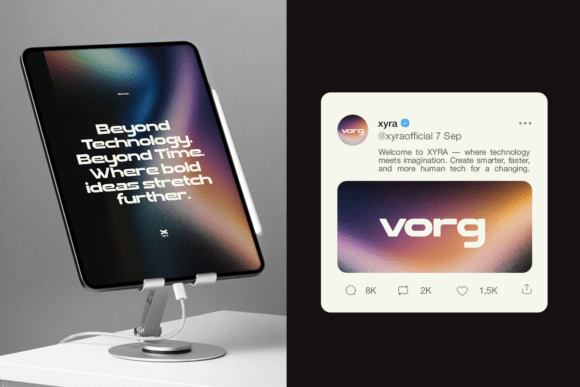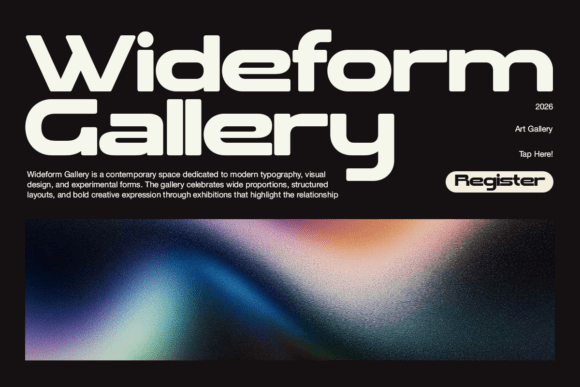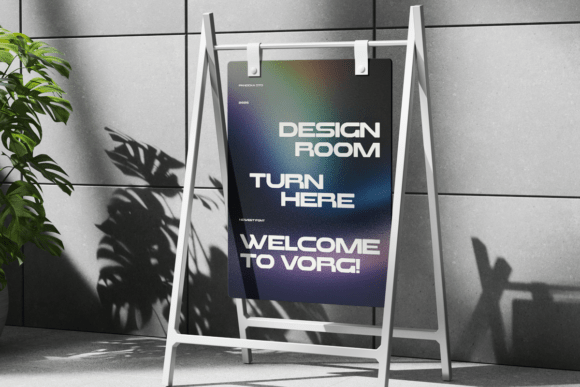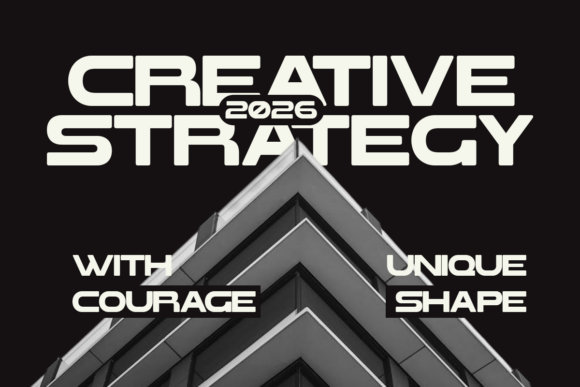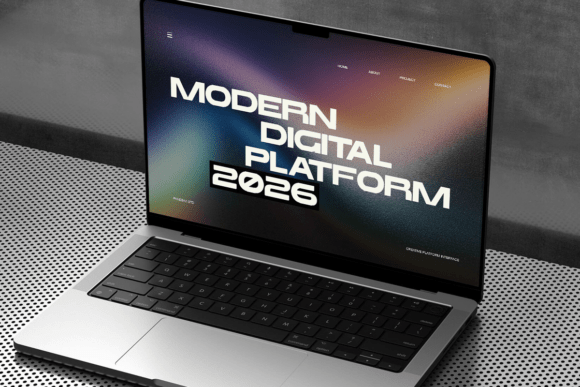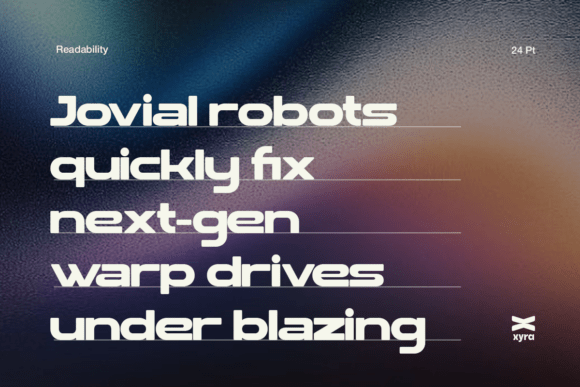
Introduction to Qianor Font
Have you ever stared at a blank canvas, searching for the perfect font to bring your creative project to life? It’s a moment we’ve all been there – the blank page, the blank slate, the endless possibilities. But sometimes, all it takes is the right font to spark that perfect idea. Enter Qianor Font, a modern extended sans serif font designed to deliver a sleek, futuristic, and professional look that’s sure to elevate your design game.
With its wide letterforms and clean geometric structure, Qianor Font creates a strong visual presence that works perfectly for modern branding and technology-inspired designs. Whether you’re working on a high-quality design project or simply need a reliable design resource, Qianor Font is an excellent choice. Plus, its transparent background makes it easy to layer and customize to fit your creative vision.
Key Features of Qianor Font
- Unique and elegant design, ideal for creative projects that require a touch of sophistication
- Designed to be highly legible, even at small font sizes, making it perfect for body text and captions
Honest Review: Qianor Font
As a designer, I’m always on the lookout for high-quality design resources that can elevate my creative projects. Recently, I had the chance to try out the Qianor Font, and I’m excited to share my honest review with you.
- Unique and elegant design: The Qianor Font has a beautiful, sophisticated look that’s perfect for any creative project.
- Transparency issues: While the font has a transparent background, it can be a bit tricky to work with, especially for beginners.
- Limited font weights: The Qianor Font is available in a limited number of font weights, which might not be ideal for designers who need more flexibility.
Overall, I’m impressed with the Qianor Font’s unique design and high-quality vectors. While it has some limitations, it’s still a great resource for designers who need a beautiful and elegant font for their creative projects. If you’re looking for a free download that’s perfect for design work, the Qianor Font is definitely worth checking out.
The Qianor Font is ideal for use in creative projects such as branding, packaging design, and digital graphics. Its high-quality design makes it perfect for use in a variety of applications.
Tips for Getting the Most Out of Qianor Font
To get the most out of the Qianor Font, use it in conjunction with other high-quality design resources. Experiment with different font sizes and styles to create unique and eye-catching designs.